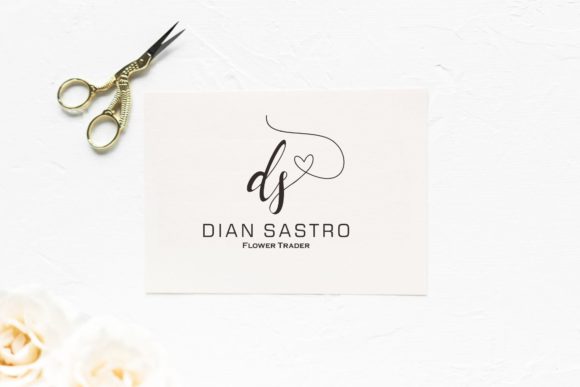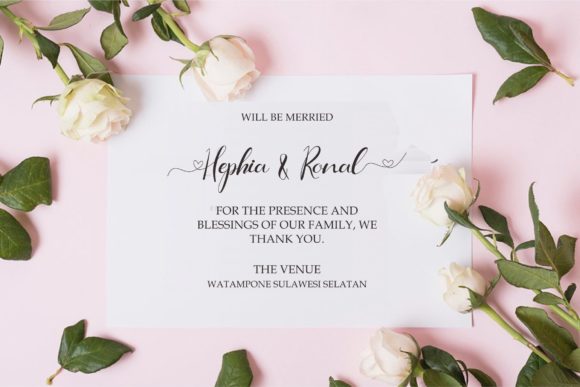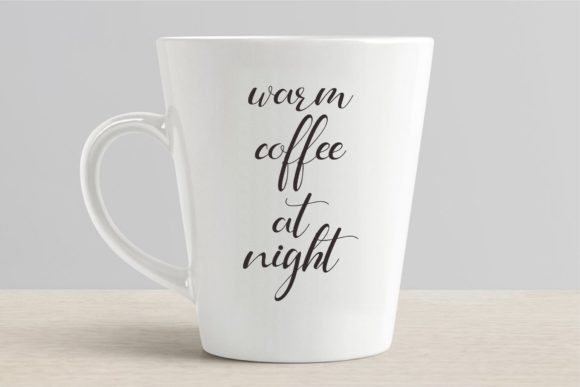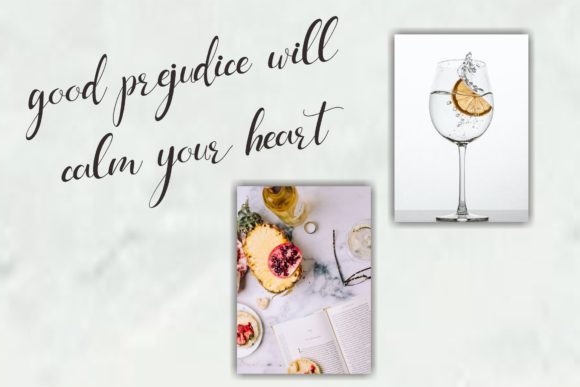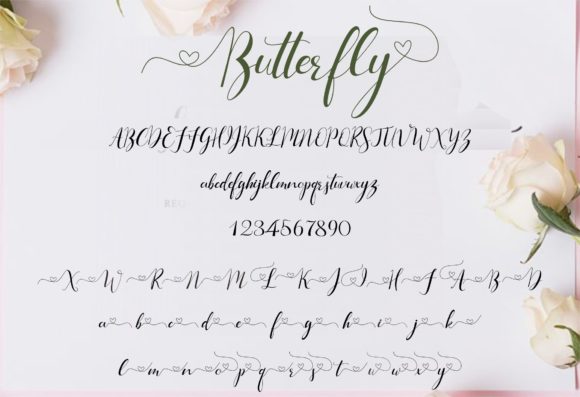
Introducing the Butterfly Font: A Sweet and Elegant Handwritten Delight
Are you a designer or crafter looking for a font that adds a touch of whimsy and sophistication to your projects? Look no further than the Butterfly Font, a beautiful handwritten font that is sure to take your designs to the next level. In this article, we’ll dive into the features and benefits of the Butterfly Font, and explore how it can be used to bring your creative visions to life.
A Sweet and Elegant Handwritten Font
The Butterfly Font is a sweet and elegant handwritten font that is perfect for a variety of design projects. Whether you’re creating wedding invitations, branding materials, or social media graphics, this font is sure to add a touch of personality and style. With its delicate and cursive lines, the Butterfly Font has a romantic and feminine feel that is sure to captivate your audience.
One of the standout features of the Butterfly Font is that it is PUA (Private Use Area) encoded. This means that you can access all of the glyphs and swashes with ease, giving you complete creative control over your designs. With the Butterfly Font, you can easily add flourishes and embellishments to your text, making it truly unique and eye-catching.
Unique and Beautiful Touch
Every letter in the Butterfly Font has a unique and beautiful touch, which will make your design come alive. The font’s handwritten style gives it a personal and organic feel, making it perfect for designs that require a human touch. Whether you’re creating a logo, a poster, or a social media graphic, the Butterfly Font is sure to add a touch of elegance and sophistication.
The Butterfly Font is perfect for designers and crafters who are looking for a font that is both versatile and stylish. With its wide range of applications, this font is sure to become a go-to in your design arsenal. Whether you’re creating digital or print materials, the Butterfly Font is sure to add a touch of whimsy and sophistication to your designs.
Use Cases for the Butterfly Font
So, how can you use the Butterfly Font in your designs? Here are a few ideas to get you started:
- Wedding Invitations: The Butterfly Font is perfect for wedding invitations, adding a touch of romance and elegance to your designs.
- Branding Materials: Use the Butterfly Font to create custom branding materials, such as logos, business cards, and letterheads.
- Social Media Graphics: Add a touch of personality to your social media graphics with the Butterfly Font, making them stand out in a crowded feed.
- Stationery: Create custom stationery, such as notebooks, journals, and greeting cards, with the Butterfly Font.
Tips for Using the Butterfly Font
Here are a few tips for using the Butterfly Font in your designs:
- Experiment with Swashes: Take advantage of the font’s PUA encoding and experiment with different swashes and flourishes to add personality to your text.
- Mix and Match: Mix and match the Butterfly Font with other fonts to create a unique and eye-catching design.
- Play with Color: Experiment with different colors and textures to add depth and interest to your design.